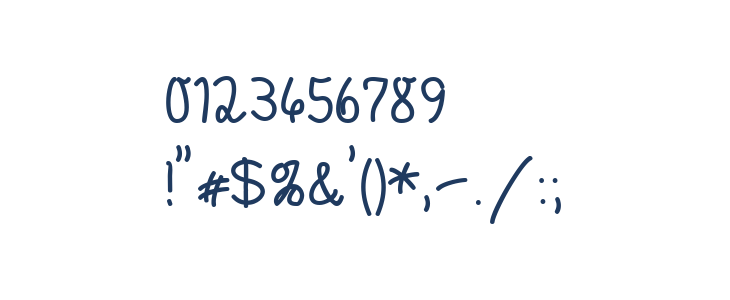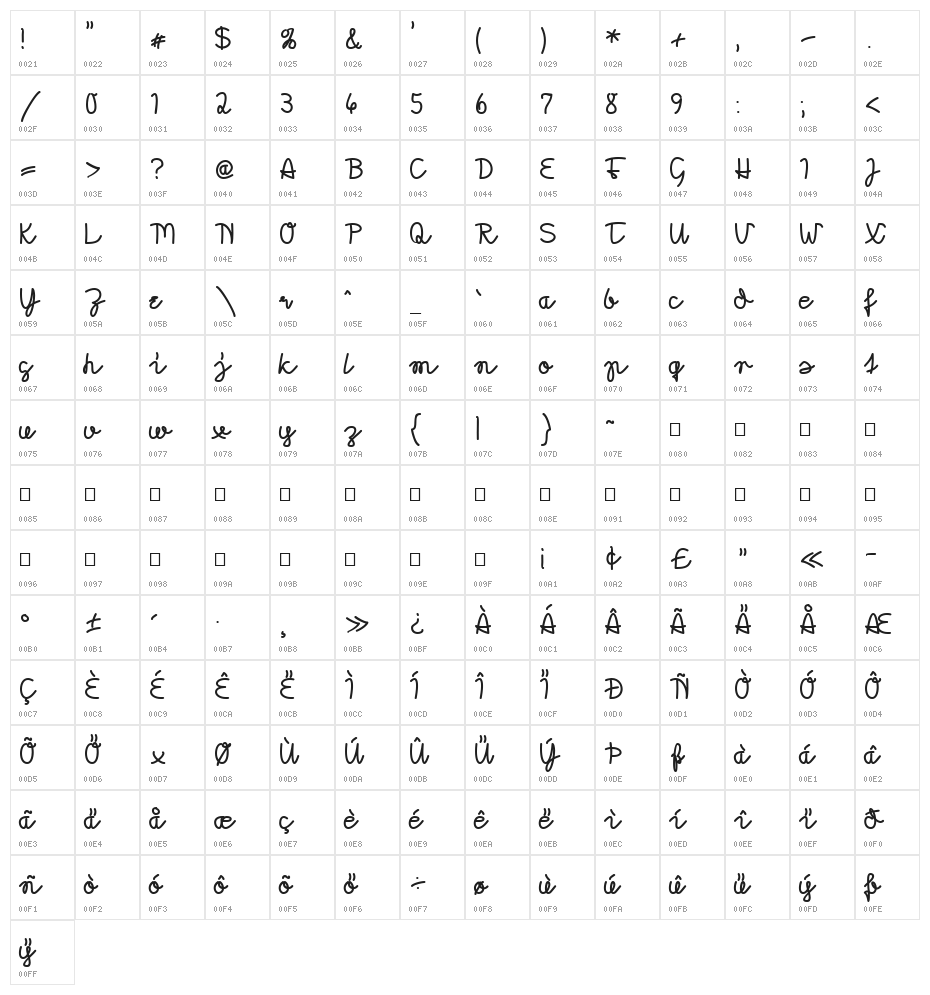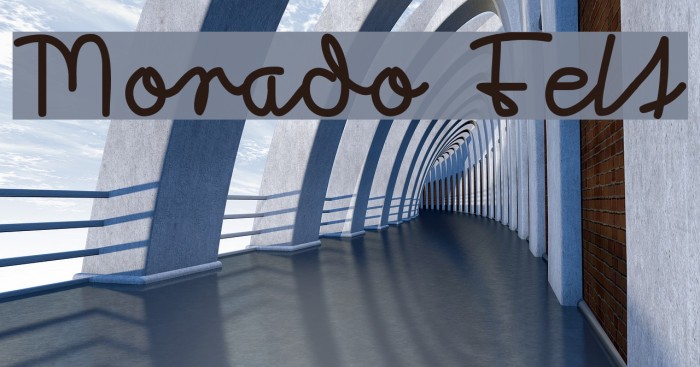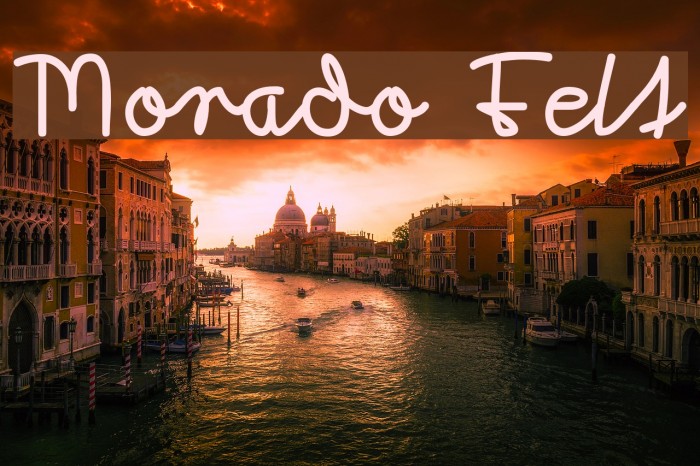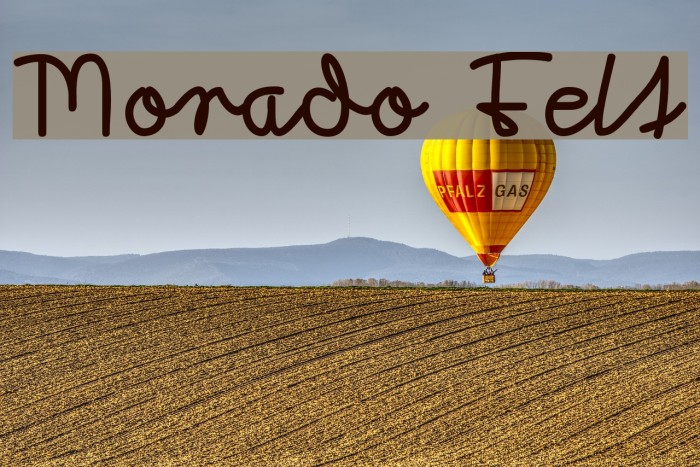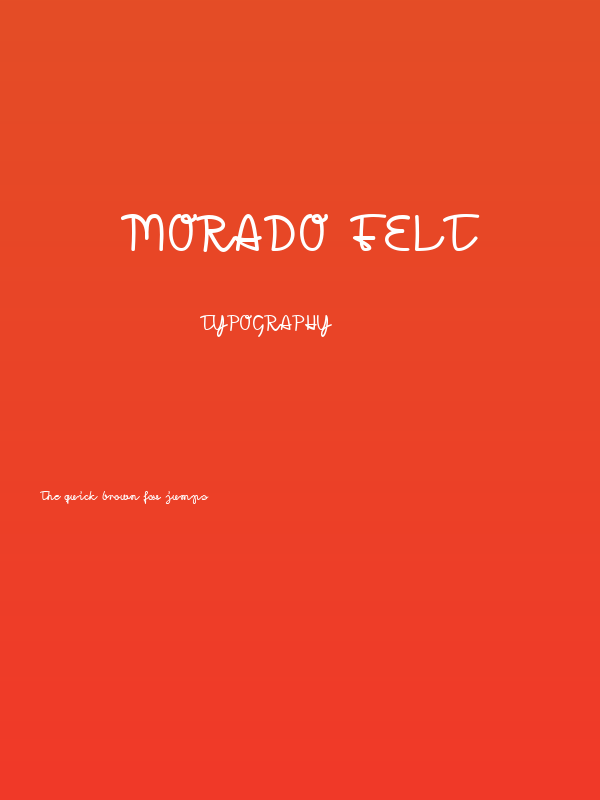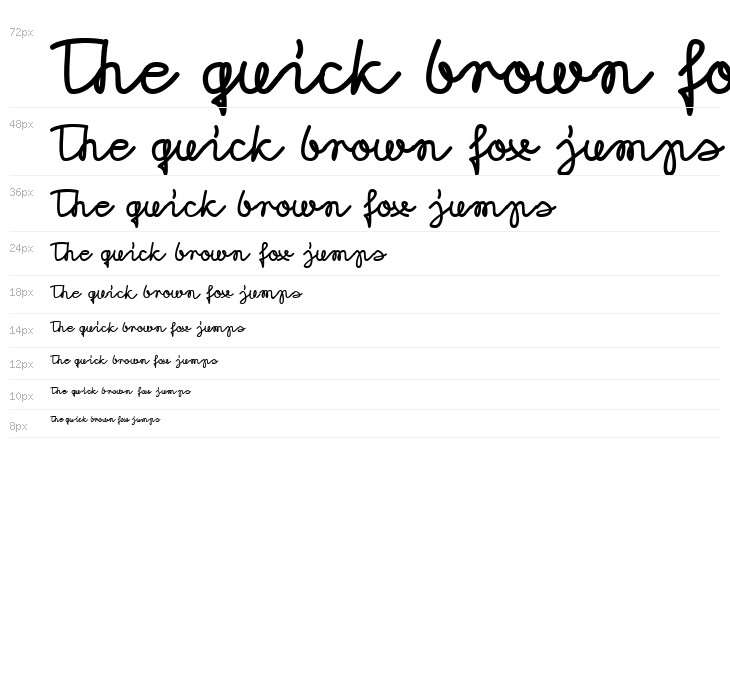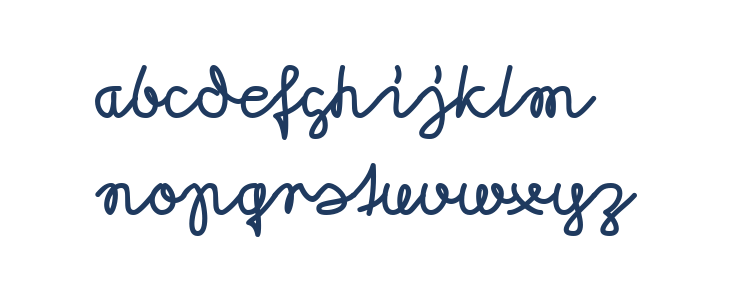
Morado Felt Font
Morado Felt Description
This font exudes a playful and casual handwritten style, characterized by its fluid and dynamic strokes. The uppercase letters are bold and slightly whimsical, with a consistent flow that mimics natural handwriting. The lowercase letters maintain a similar style, with some letters featuring unique loops and curves that add to the font's charm. Numbers and special characters are crafted with the same playful touch, ensuring a cohesive look across all characters. The overall appearance is informal yet stylish, making it suitable for projects that require a personal touch.
| Proposed Projects | Ideal for greeting cards, invitations, personal branding, and creative projects that require a casual and friendly tone. |